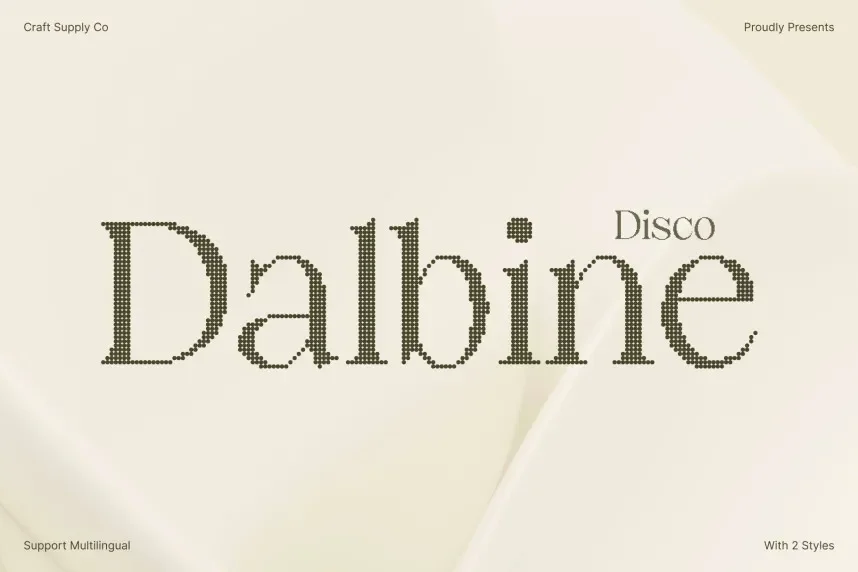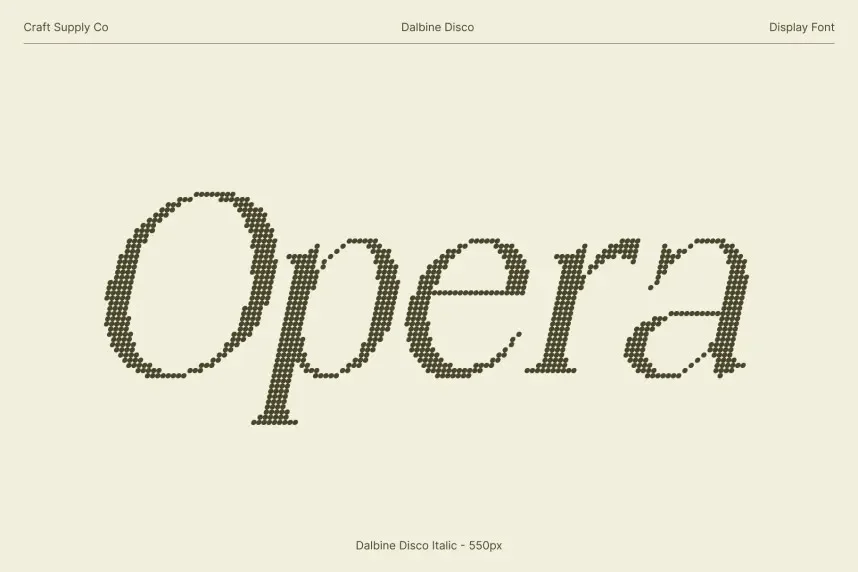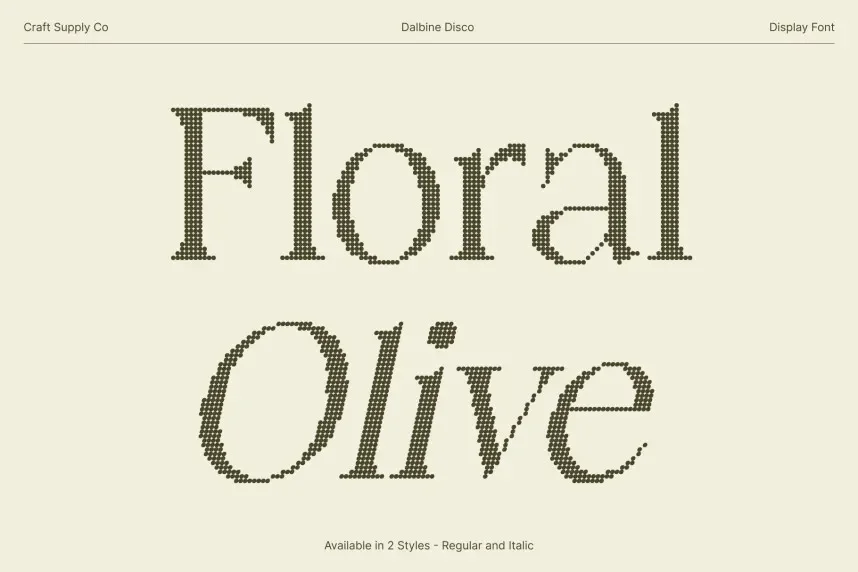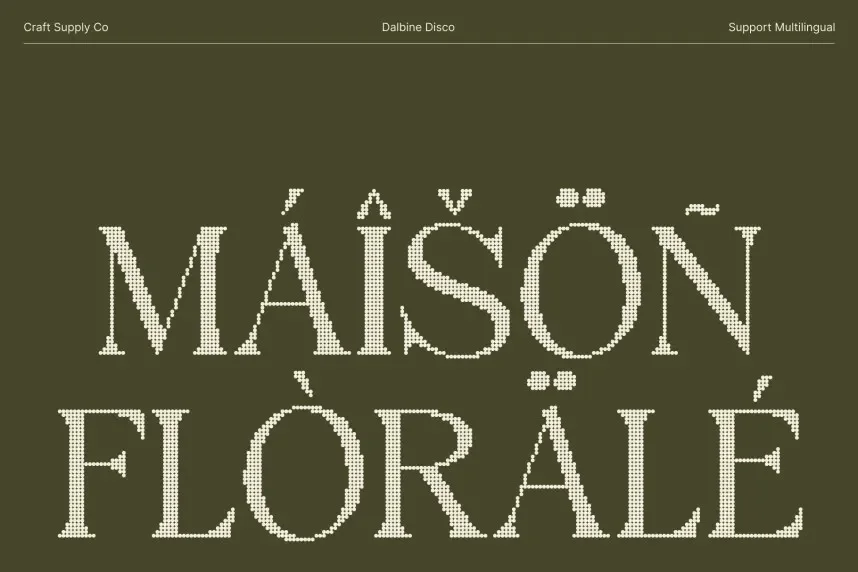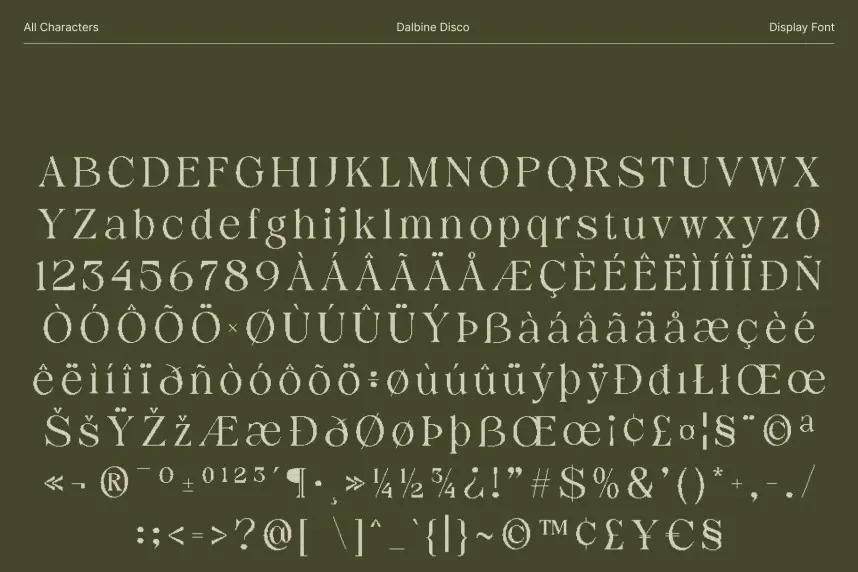
Dalbine Disco Font is a fun, lively display font with a bold design and distinct letterforms. Its retro disco vibe makes it perfect for designs that need a pop of energy and a touch of nostalgia, such as event promotions, music branding, and posters.